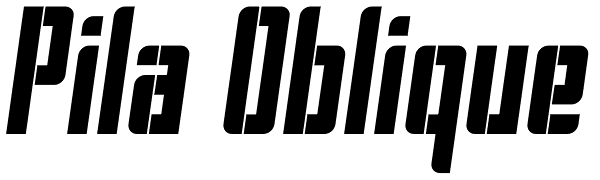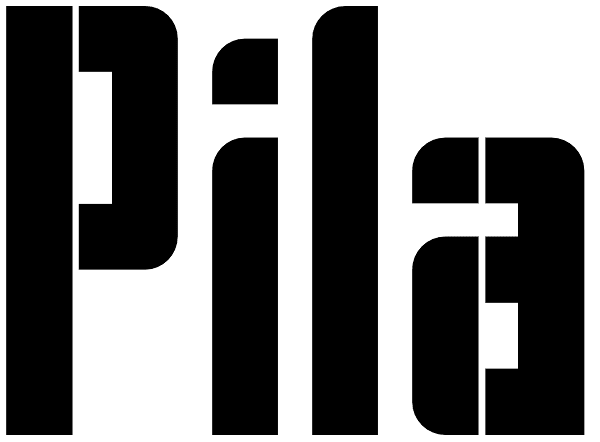
Pila
Pila, designed by Alex Jacque in 2014, is a modular, sans-serif stencil typeface that comes in regular and condensed formats. Crafted to be a bold, punchy, no-nonsense stencil typeface, Pila owes its unique look — as well as its name — to its...